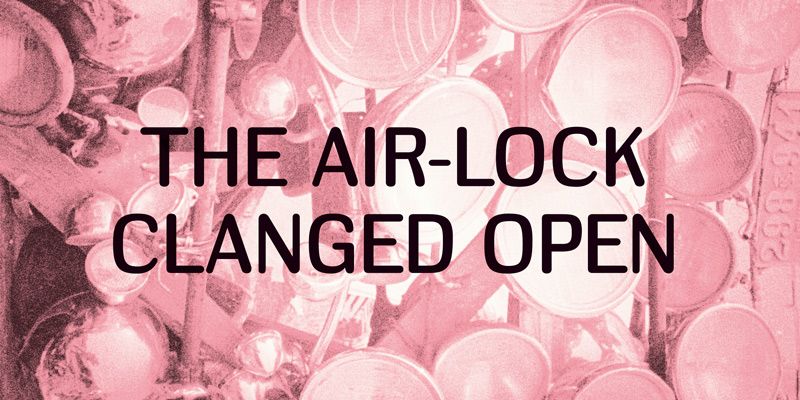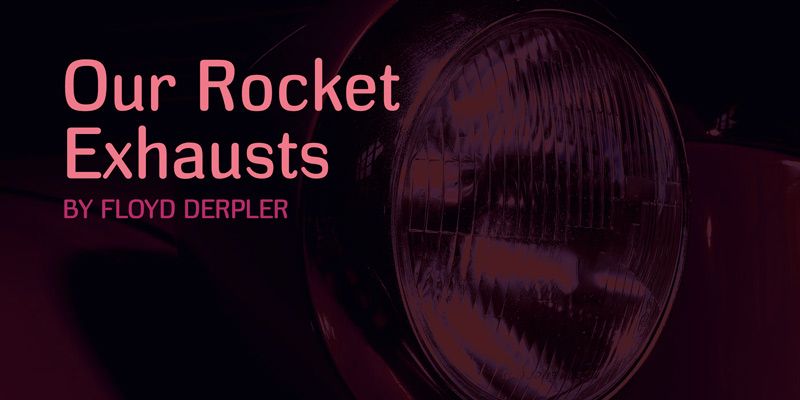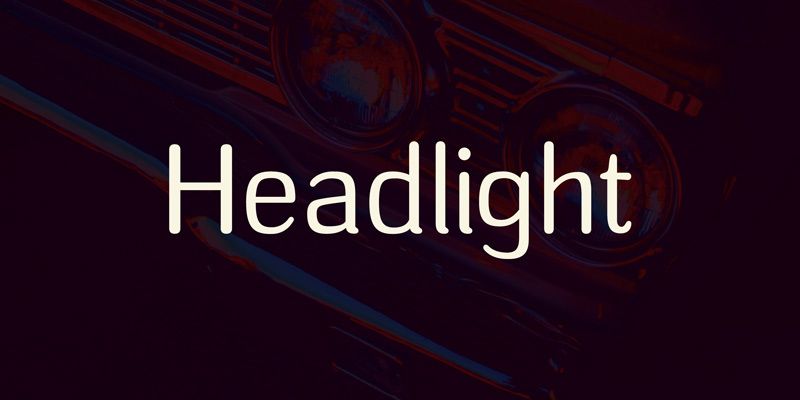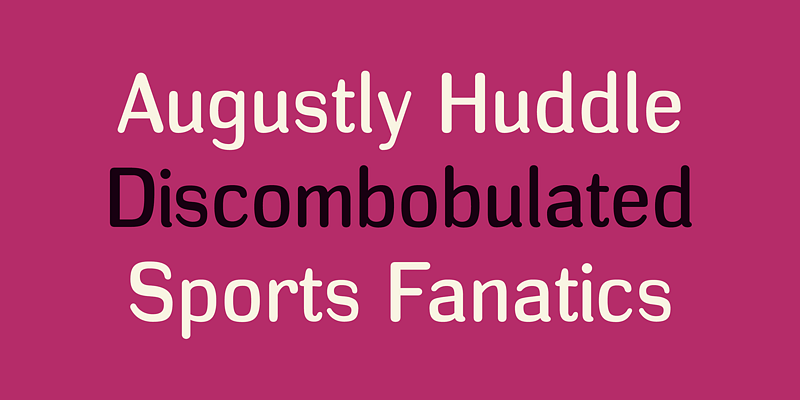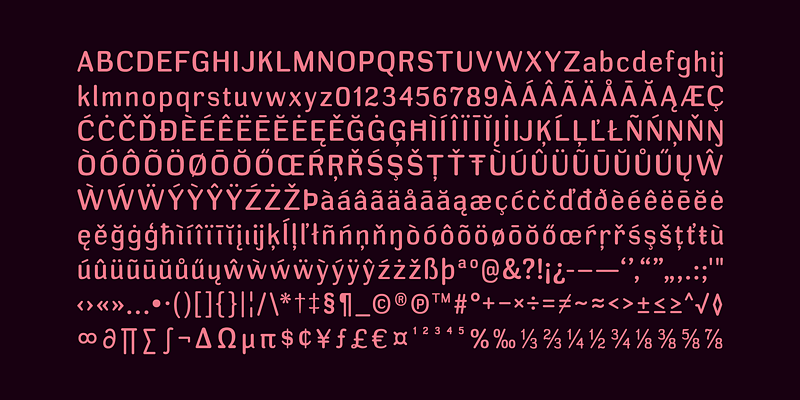
Headlight mixes squared, mechanical construction with details that recall lettering made by an oval nib. The result has a useful tension: it feels engineered at first glance, then grows more peculiar as the curves and stroke endings come into focus. Use it for a vehicle name, workshop sign, equipment label, or a poster that needs technical character without becoming a diagram. Its unusual joins can carry a short title with a strong personality of its own.